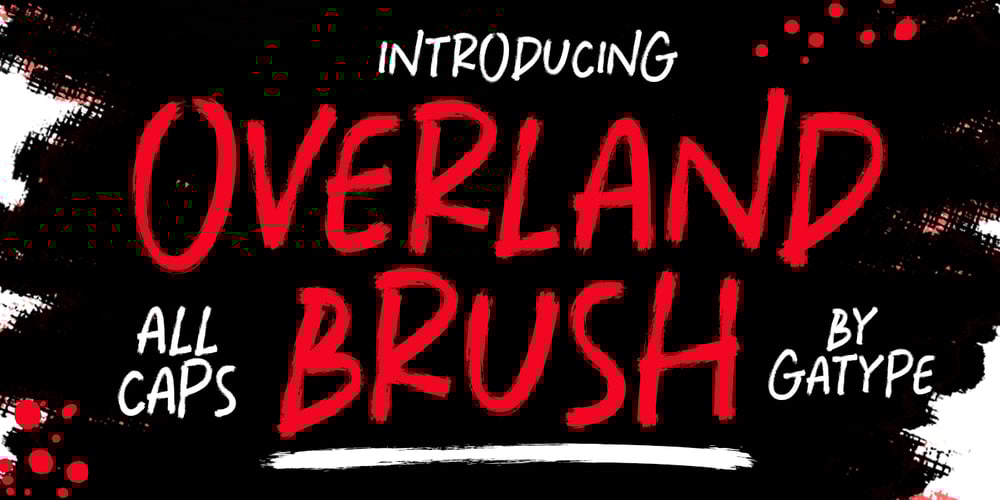
Overland Brush
Overland Brush font
Overland Brush Font Family was designed by khaidir and published by Gatype. Overland Brush contains 2 styles and family package options. Overland Brush is a beautiful uppercase display brush font, designed with a modern vibe. The Overland Brush is best suited for any design project, such as posters, banners, logos, book covers, album covers, quotes, invitations, greeting cards, business cards, titles, print products, merchandise, social media, etc. Find out more ways to use this font by previewing the font.Thank you and happy designing